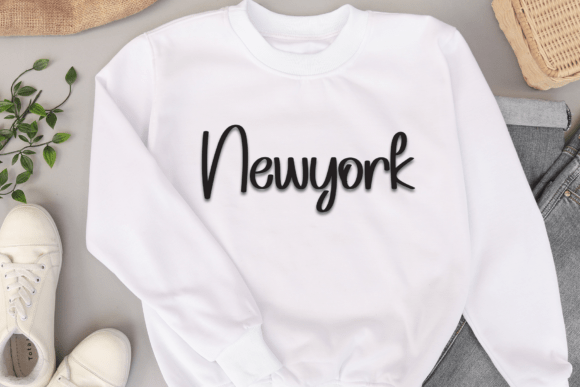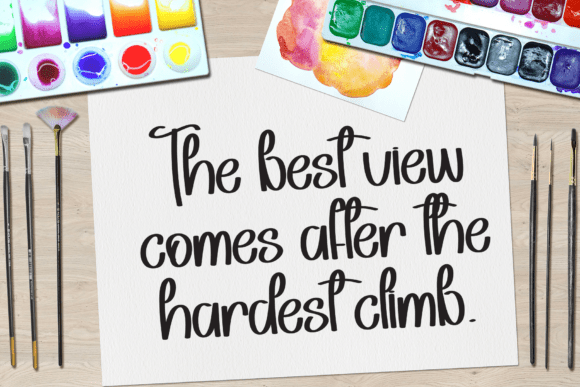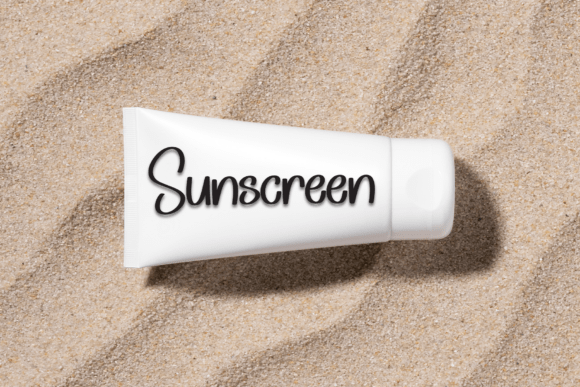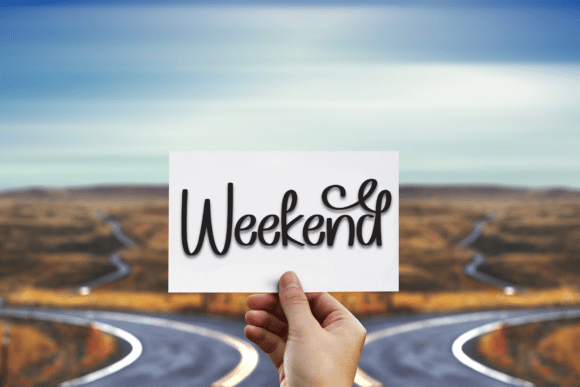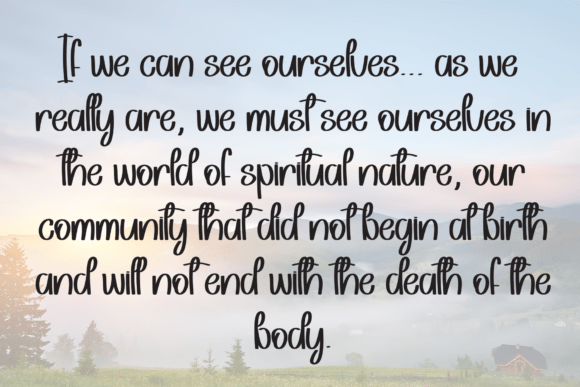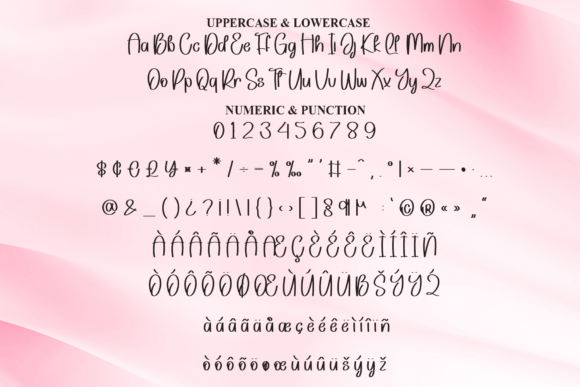
Introduction to Hey Barbie Font
As designers, we’ve all been there – staring at a blank canvas, trying to bring our creative vision to life. It’s that moment when the right font can make all the difference. Imagine a font that exudes warmth, clarity, and approachability, perfectly balancing style and readability. Enter the Hey Barbie Font, a free design resource that’s about to become your new go-to companion.
Designed to elevate your creative project, the Hey Barbie Font boasts a clean structure and an effortlessly cool vibe. Its balanced letterforms not only make every message feel genuine and inviting but also ensure that your designs stand out from the crowd. Whether you’re working on a branding project or creating a visually appealing social media post, this font is the perfect addition to your design toolkit.
Key Features of Hey Barbie Font
- High-quality, unique design ideal for creative projects and design resources
- Font size: 1,000 characters per font, with a total of 4 font styles (Regular, Italic, Bold, and Bold Italic)
- Perfect for graphic designers, digital artists, and anyone looking for a distinctive, feminine font
Honest Review: Hey Barbie Font
As a designer, I’m always on the lookout for high-quality design resources to enhance my creative projects. The Hey Barbie Font is one such resource that caught my attention, and I’m excited to share my honest review with you.
What works well: ✨ The font is incredibly versatile and can be used for a variety of projects, from blog headers to social media graphics. The transparent background makes it easy to use in conjunction with other design elements. The font is also highly customizable, with a range of style options to suit different design needs.
What doesn’t: ⚠️ While the font is high-quality, it’s not without its limitations. The font family is relatively small, which may not be ideal for larger-scale projects. Additionally, the font may not be suitable for certain design styles, such as minimalist or modern designs.
Overall, I’m impressed with the Hey Barbie Font. It’s a great free download that’s perfect for designers looking to add a touch of whimsy to their projects. While it may have some limitations, it’s a valuable addition to any design resource library.
The “Hey Barbie Font” is a versatile design resource that can be used in a variety of creative projects, such as social media graphics, blog posts, and presentations. It’s also a great option for designers looking for a high-quality font with a transparent background for use in design projects.
Can I use the Hey Barbie Font with a transparent background?
Yes, the Hey Barbie Font is designed to work well with transparent backgrounds. Since it has a transparent background, you can easily use it on images or designs with a transparent background. However, keep in mind that the font’s design may not be optimized for very small font sizes or extreme scaling.